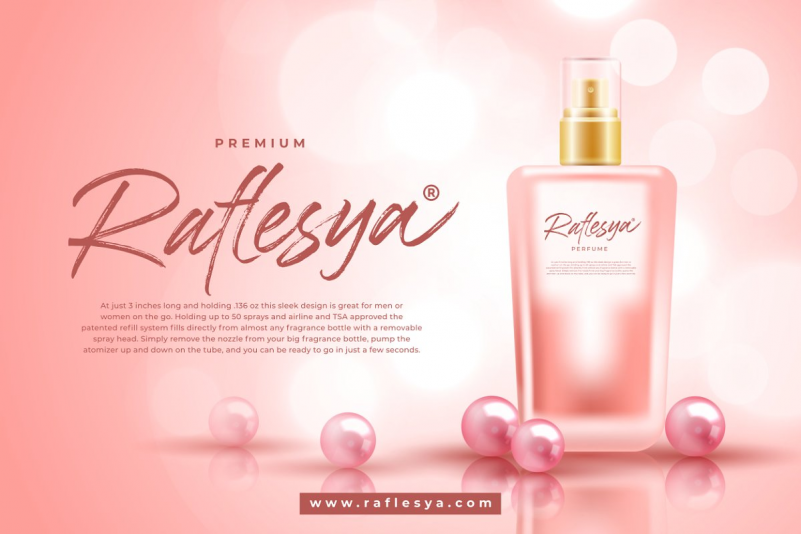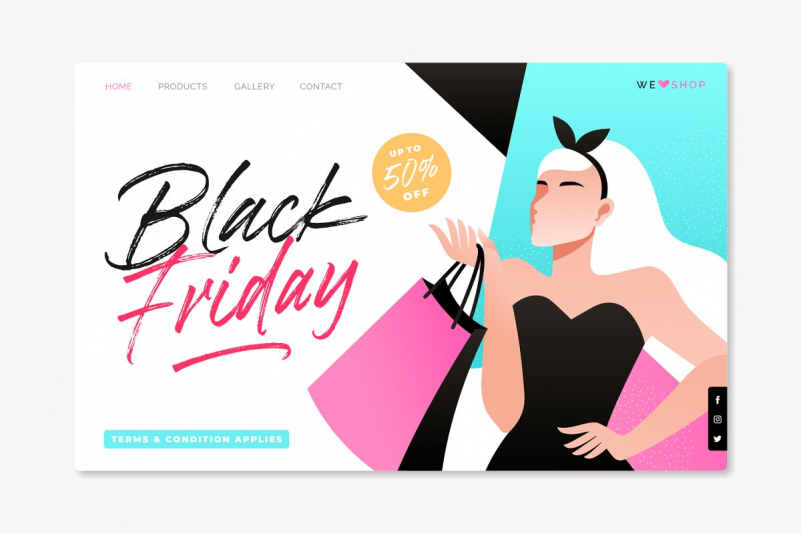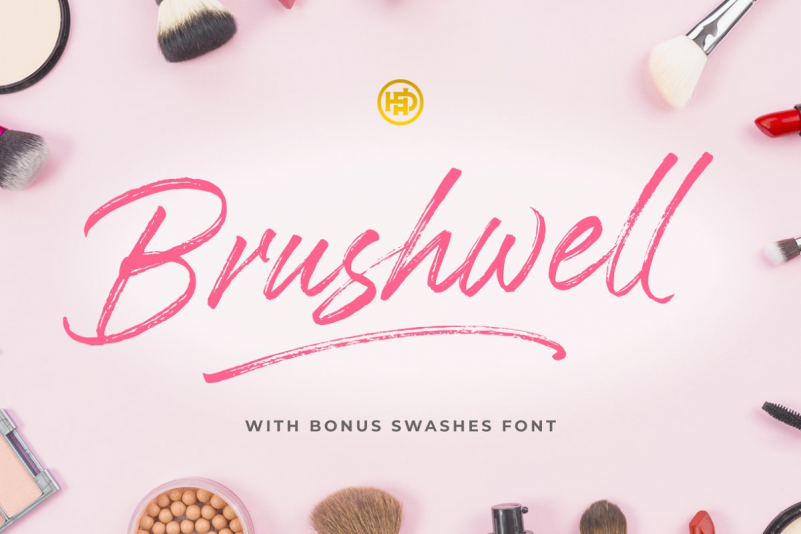
Brushwell Font
Brushwell Font is made with a real brushpen by Hendra Pratama. This font deliver the dry brush effect , to create a natural looks of beautiful handwriting brush calligraphy.